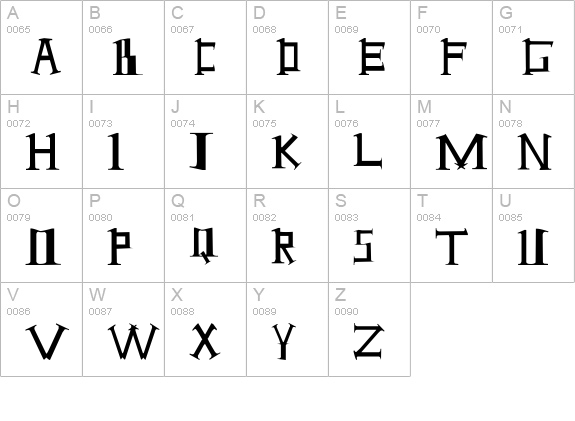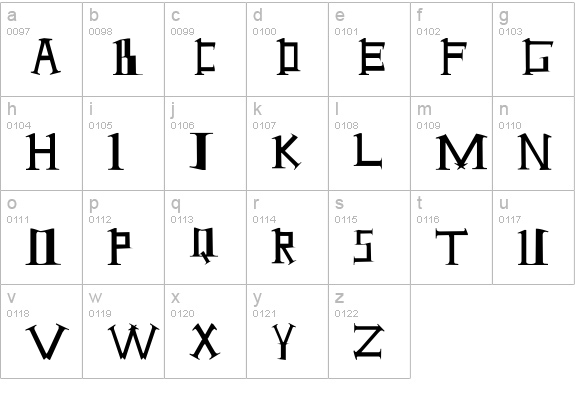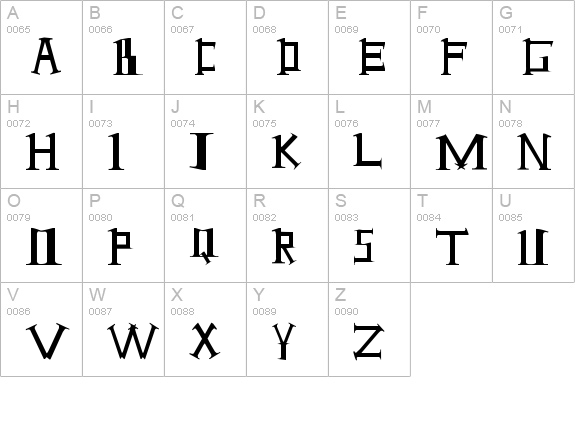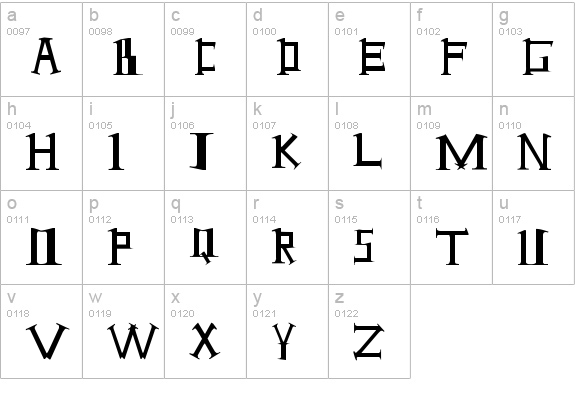
Antioch font is a versatile and elegant typeface that exudes sophistication and style. With its classic yet modern design, this font is perfect for a wide range of design projects, from branding and advertising to invitations and packaging. What sets Antioch font apart is not only its timeless appeal but also the fact that it is available for free download at FontsMarket.com. This means that you can easily access and use this beautiful font in your projects without any cost. Embodying a sense of refinement and creativity, Antioch font is a must-have addition to any designer's toolkit.